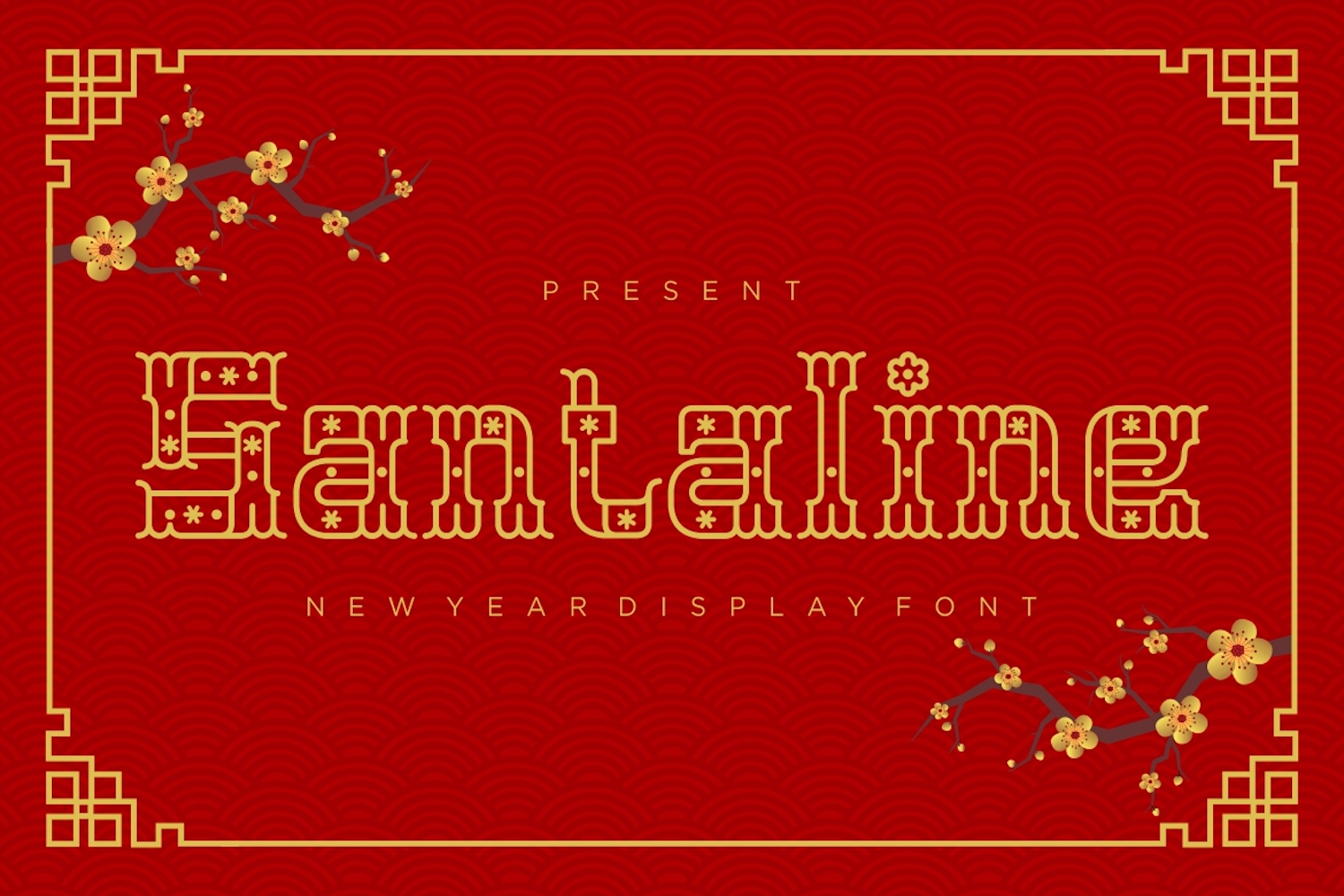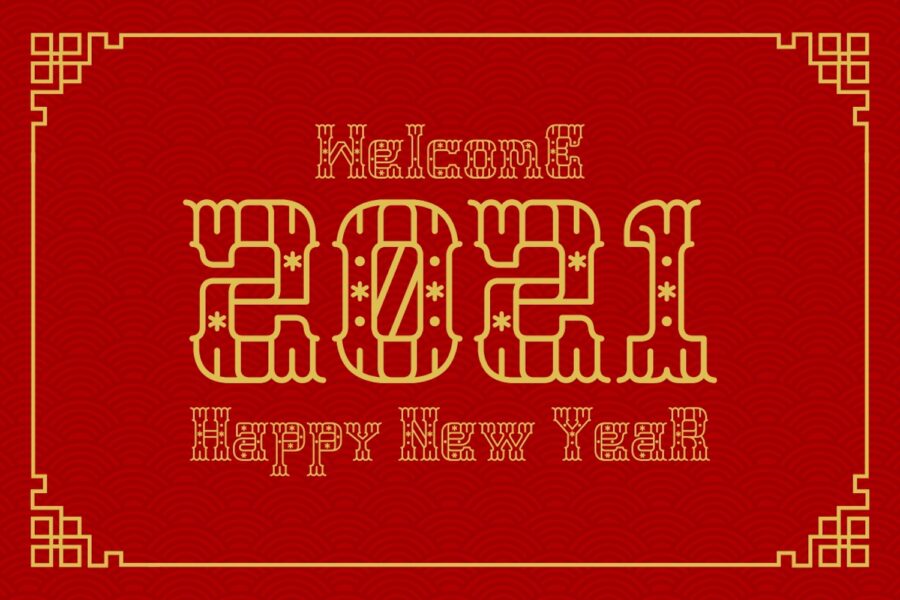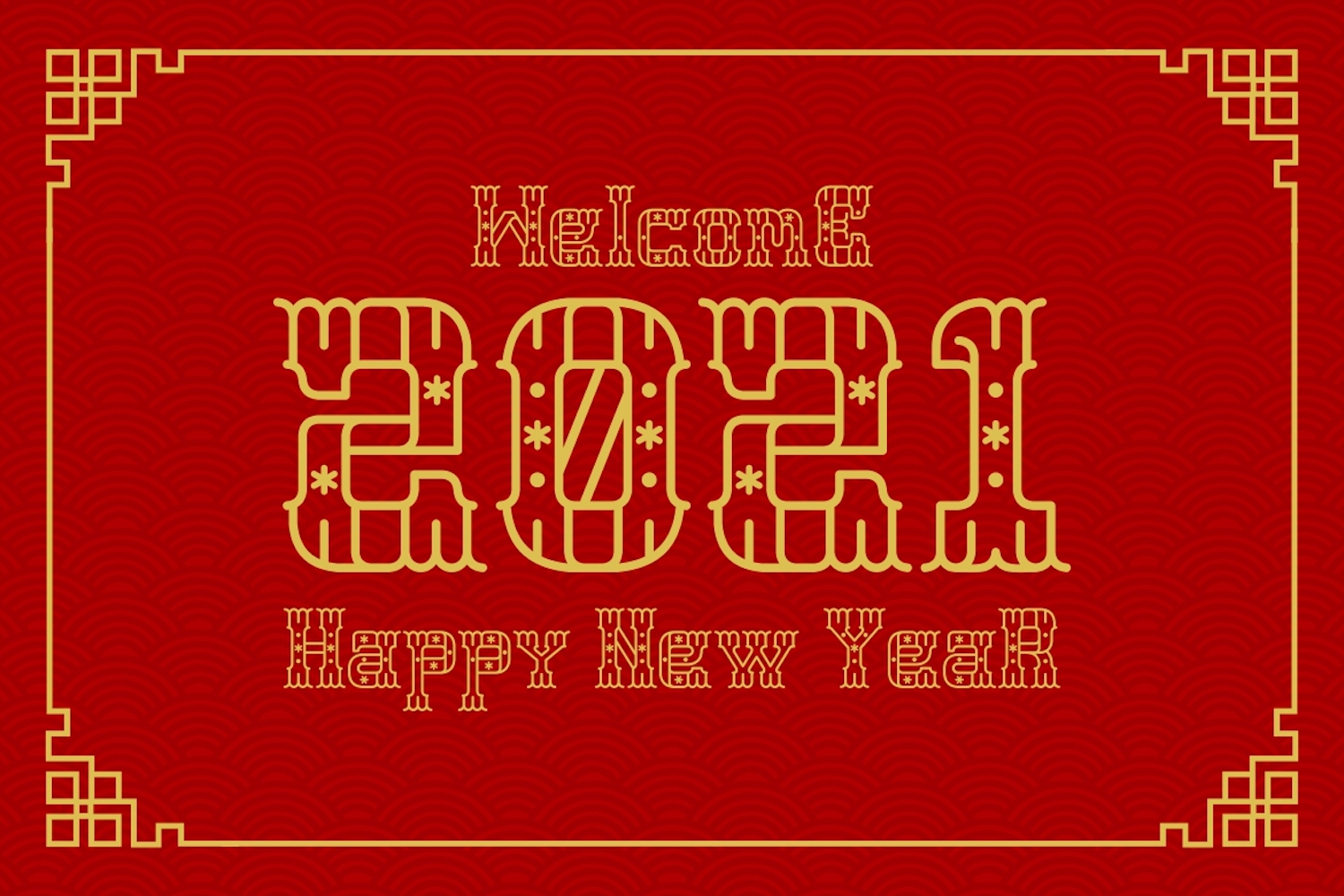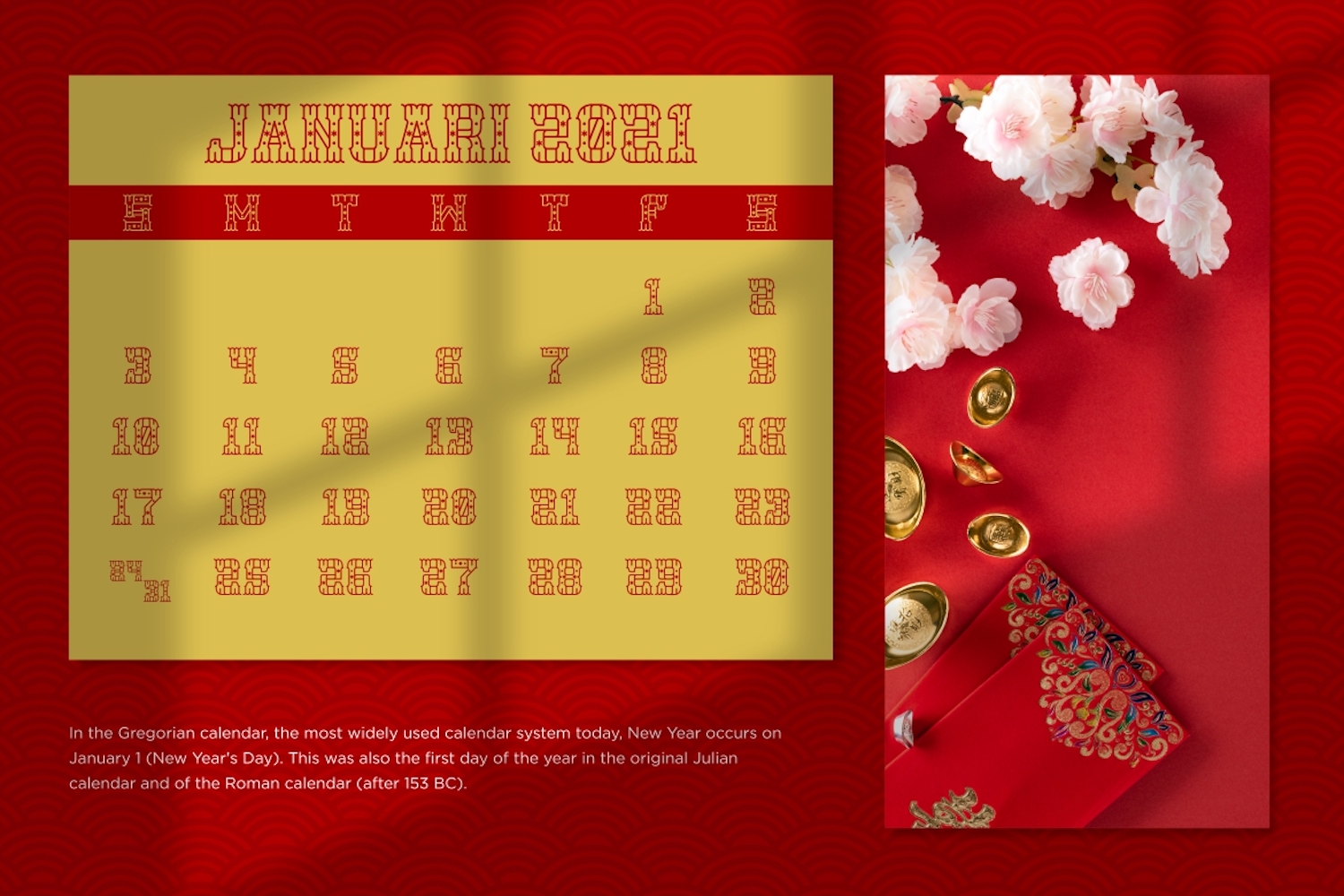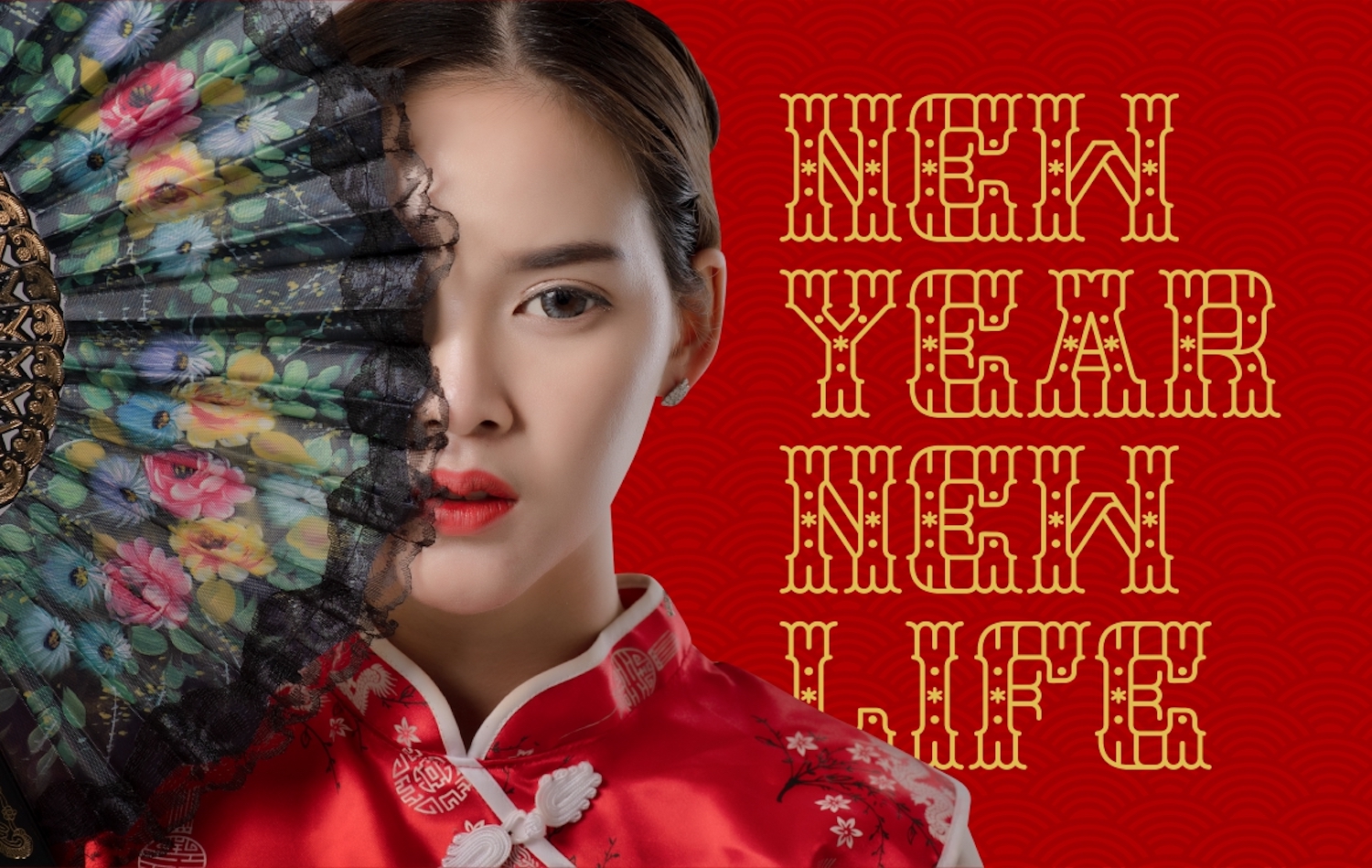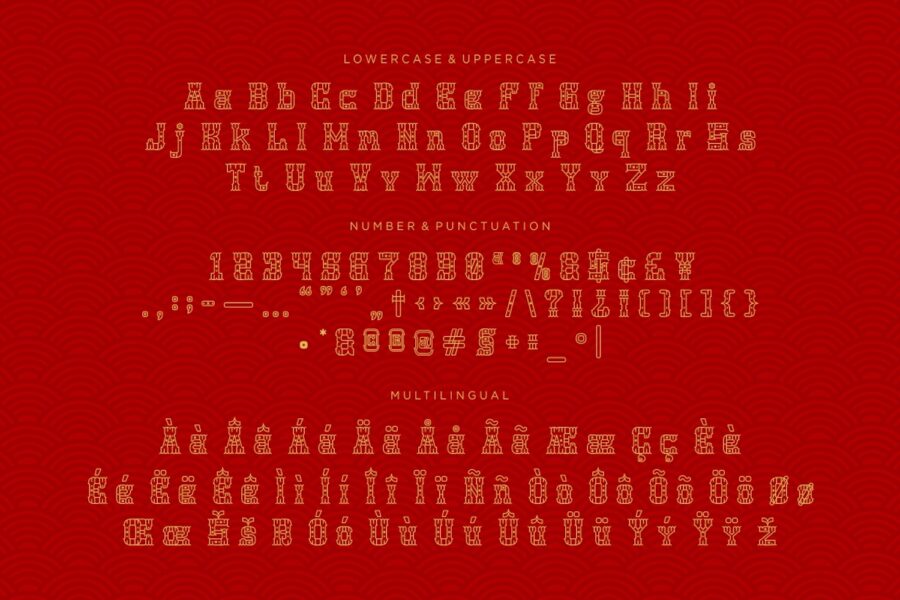
Santaline is a bold and ornate display font inspired by festive Eastern aesthetics, perfect for celebrating the Lunar New Year, Chinese festivals, or any vibrant celebration. The unique decorative elements like stars and floral accents inside the characters, give it a cheerful and elegant personality that stands out on banners, greeting cards, packaging, or digital designs.
This typeface offers full uppercase and lowercase characters, numerals, punctuation, and multilingual support, making it versatile for a global audience. With its gold-lined charm and festive energy, Santaline captures the essence of prosperity, joy, and cultural richness, creating an ideal visual impact for seasonal branding or editorial projects.
Santaline